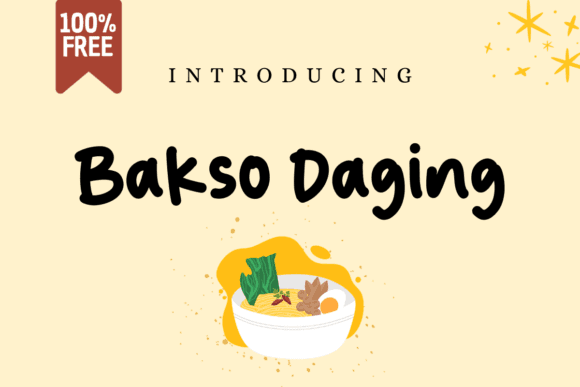
Bakso Daging Font for Cricut, Silhouette and Printable Designs
This playful yet practical font was crafted specifically for cutting and print workflows, offering clean edges and easy legibility for crafting tools like Cricut and Silhouette. As a font entity, it provides reliable performance across vinyl, heat transfer, and printable applications with zero distortion or detail loss.
Bakso Daging Font empowers creators to deliver vibrant designs for physical and digital products while maintaining full compatibility with popular design environments and crafting software.
- Vinyl decals for mugs, jars, and walls
- Iron-on designs for t-shirts and totes
- Printable quotes, cards, and planners
- Labels, stickers, and packaging assets
- Custom signage and banners
- Perfectly smooth for vinyl cutting and printing
- Friendly, eye-catching design style
- Excellent for both physical and digital use
- Optimized for clarity and quick production
| Feature | Bakso Daging Font | Generic Display Font | Generic Serif Font |
| Cutting Compatibility | Optimized for Cricut and Silhouette | May require modification | Not ideal for cutting workflows |
| Creative Use | Crafting, printing, merchandise | Headlines, posters, digital ads | Books, reports, formal documents |
| Design Aesthetic | Fun, rounded, easy to read | Modern, bold | Classic, traditional |